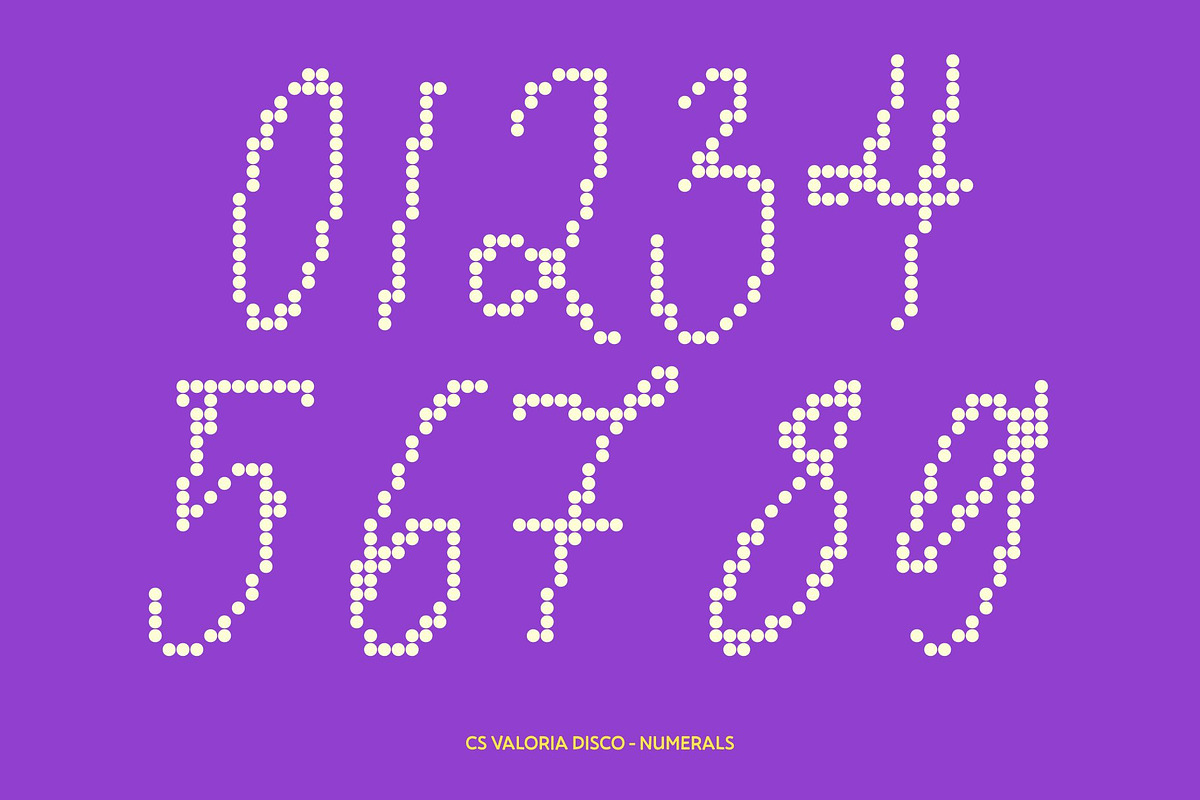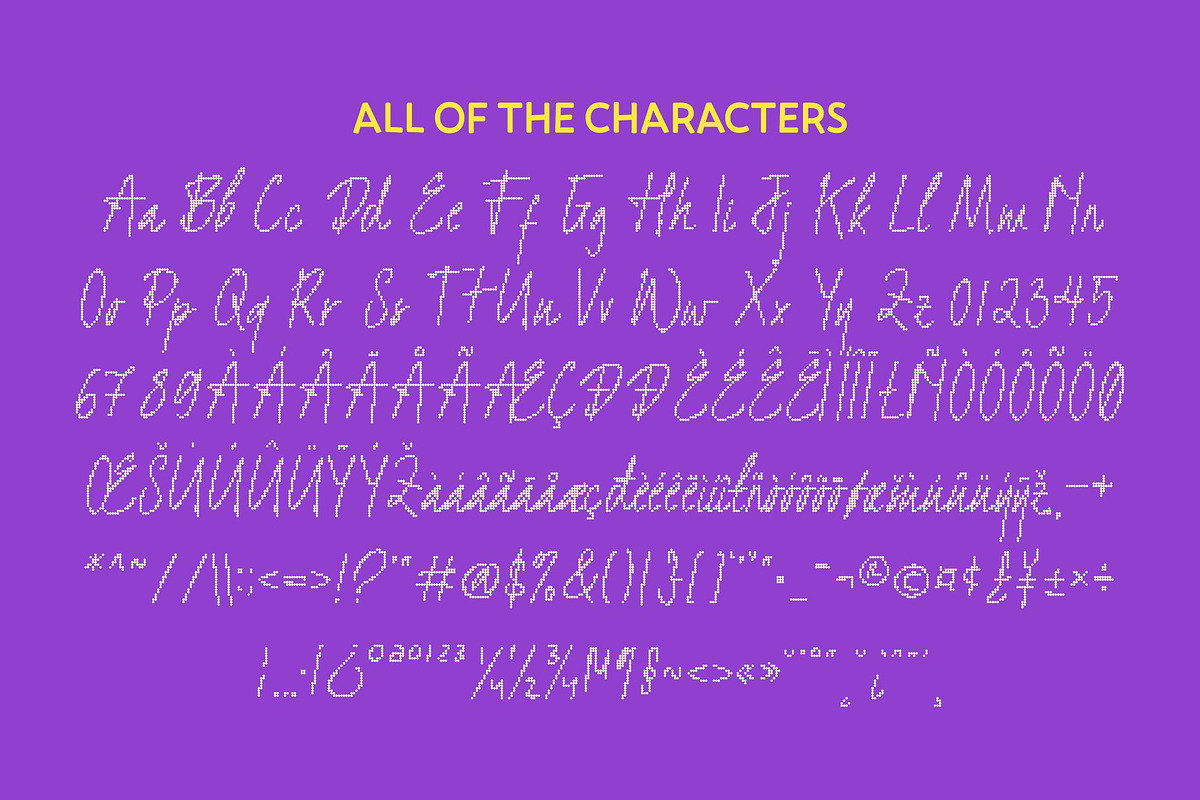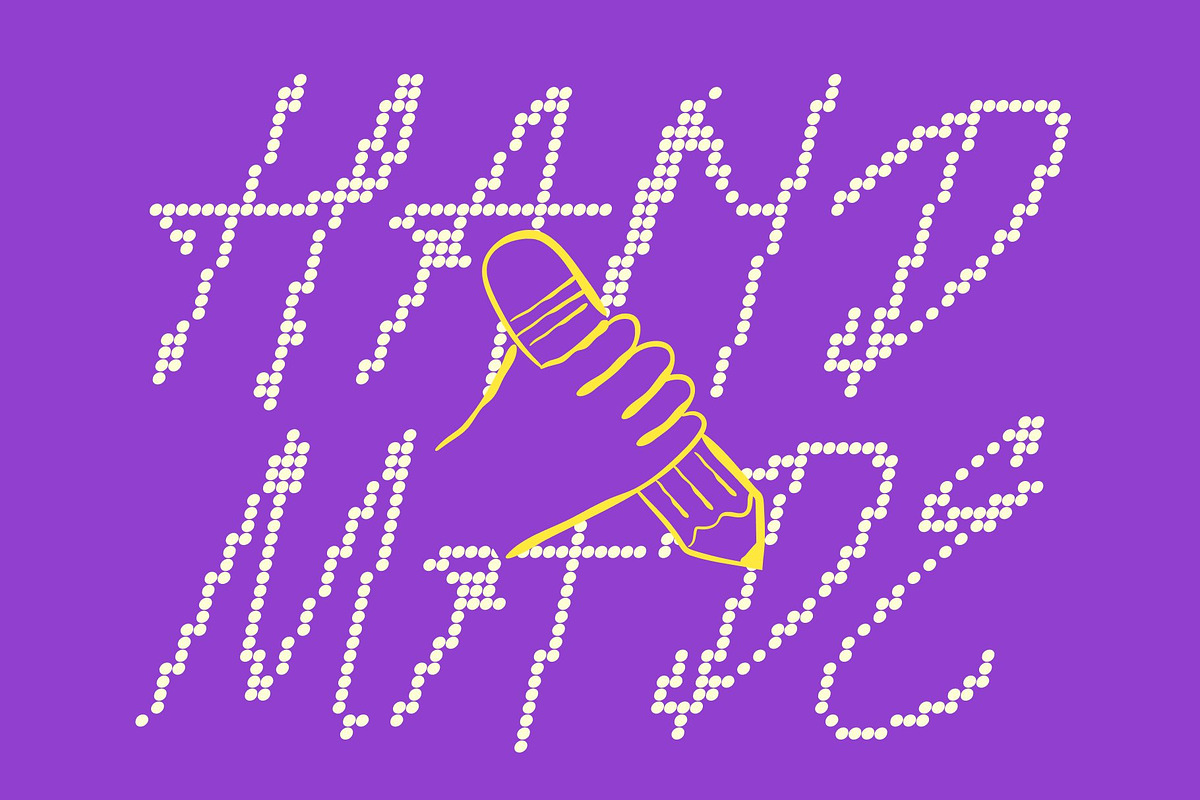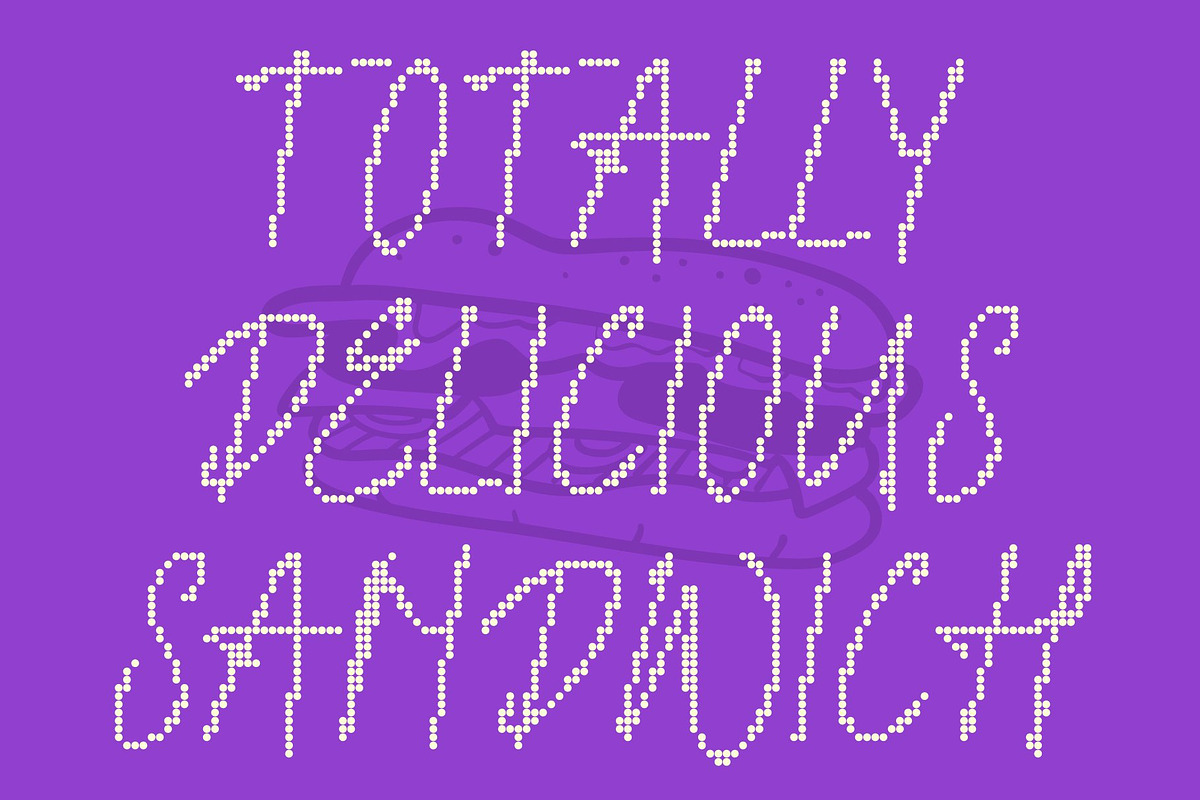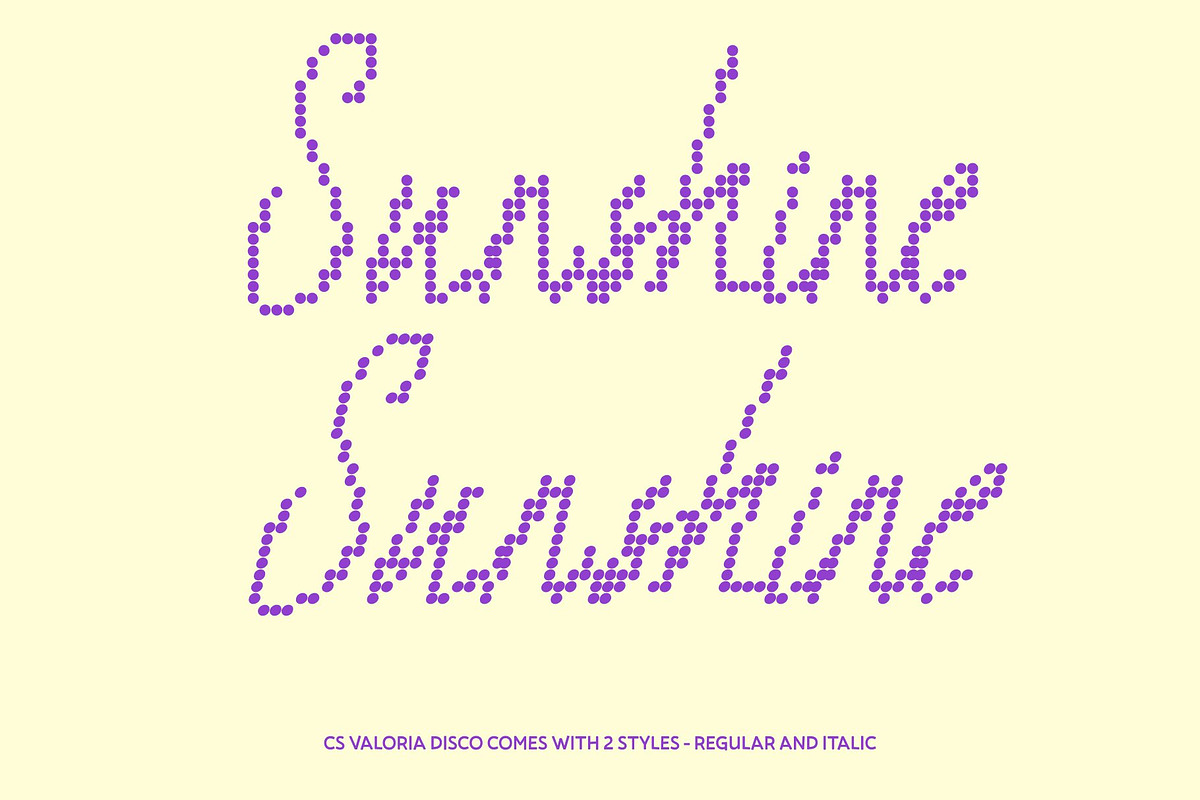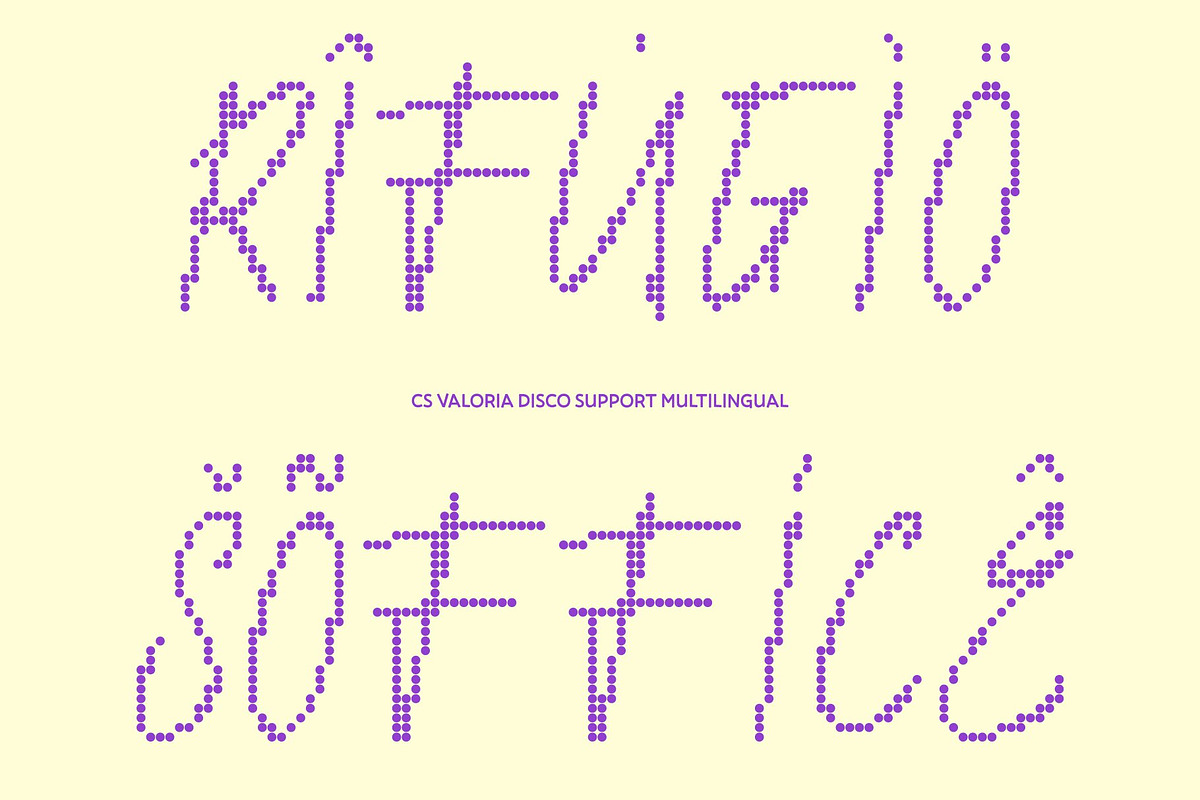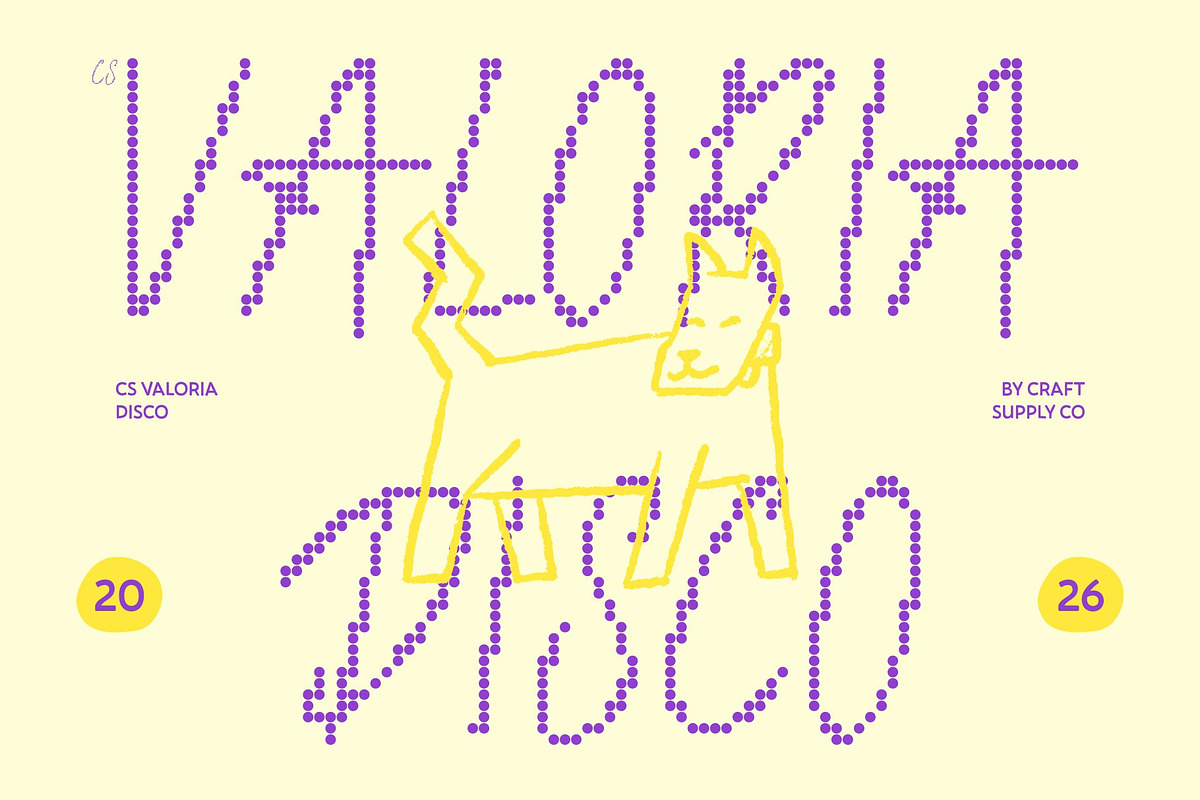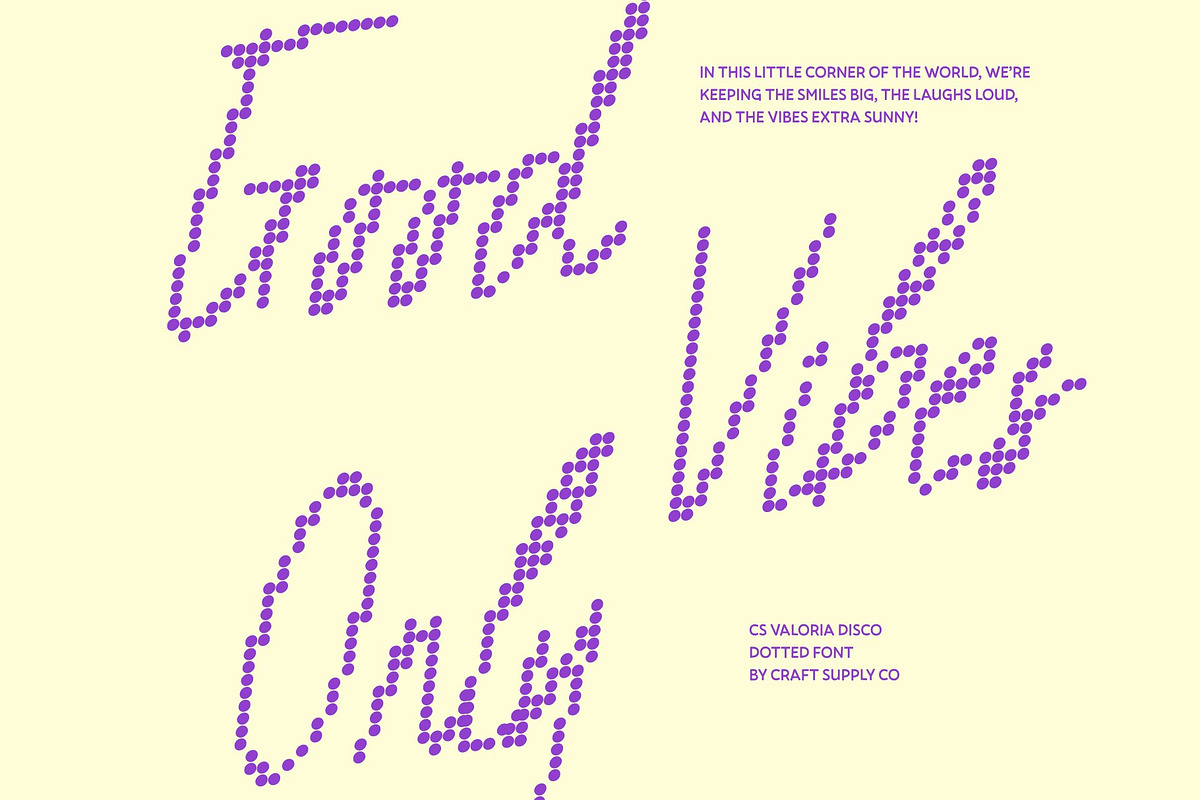
CS Valoria Disco
CS Valoria Disco – Soft Handwritten Expression with Authentic Warmth
Handwritten Script with Sparkling Disco Charm This font brings the warmth of natural handwriting into a dazzling dotted style inspired by disco lights. The soft script flow remains gentle and personal, while the sparkling dot texture adds a festive glow that makes every word feel lively and celebratory.
Organic Strokes with Playful Shine The smooth connections and natural stroke variations are enhanced by delicate dotted details, giving the font a joyful rhythm and expressive personality. This blend of authenticity and sparkle keeps the handwritten charm intact while adding a cheerful, eye-catching finish.
Warm and Emotional with a Cheerful Twist Designed to communicate sincerity and intimacy, the disco styling transforms this soft script into something even more engaging and uplifting. It balances emotional warmth with fun energy, making designs feel friendly, stylish, and full of life.
Perfect for Branding, Quotes, and Invitations This font shines in personal branding, inspirational quotes, invitations, packaging, and social media graphics. Its combination of authentic handwriting and festive sparkle makes it ideal for lifestyle brands and creative projects that want to feel heartfelt, playful, and memorable.
CS Valoria Disco Regular
CS Valoria Disco Italic